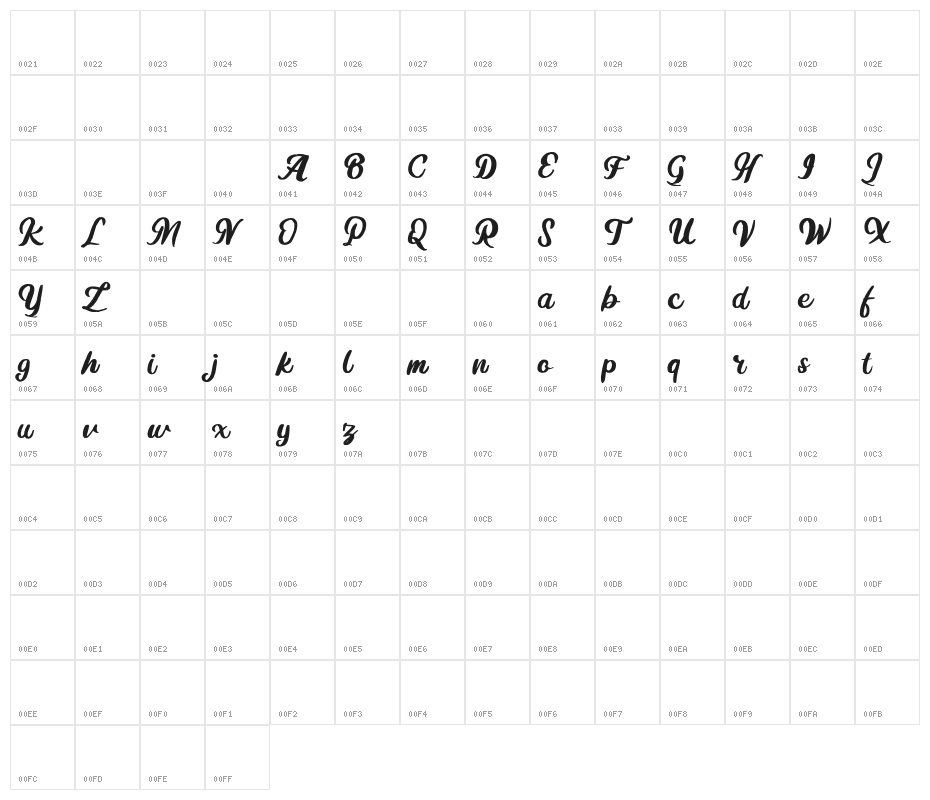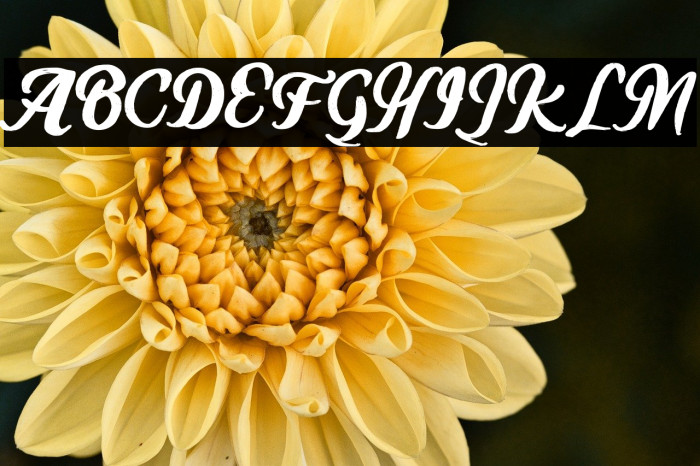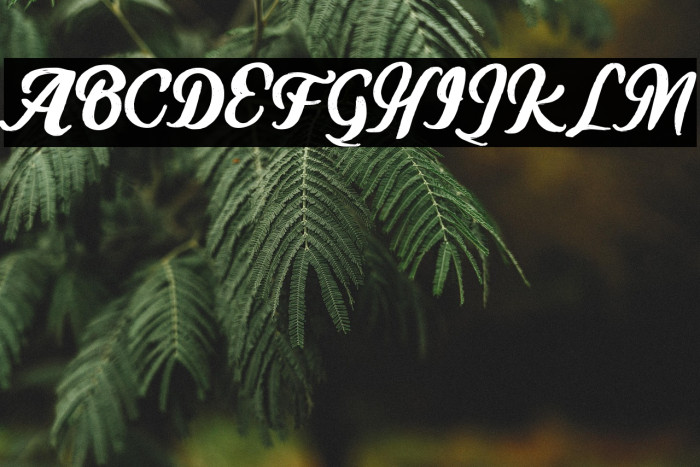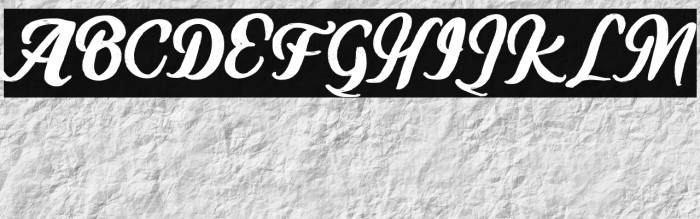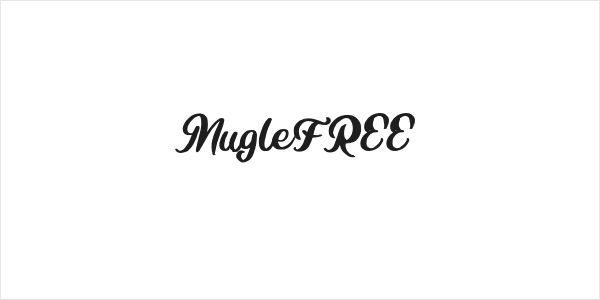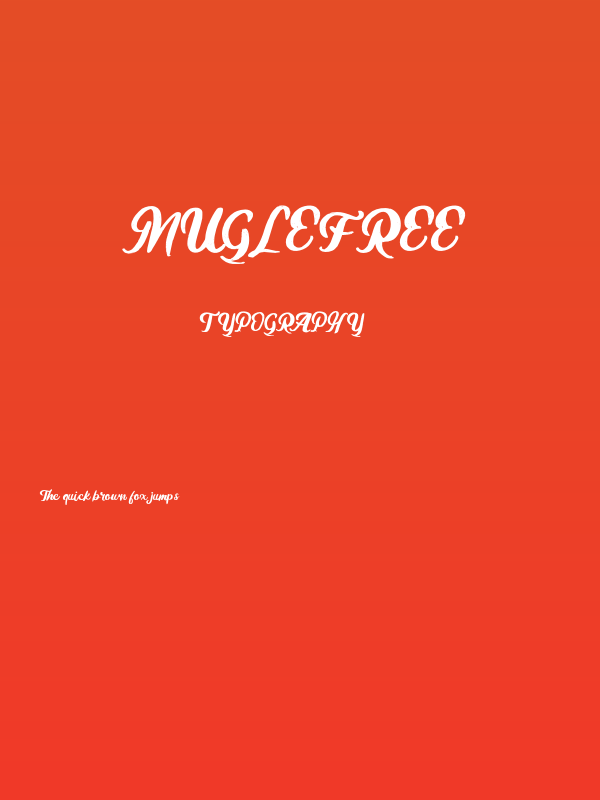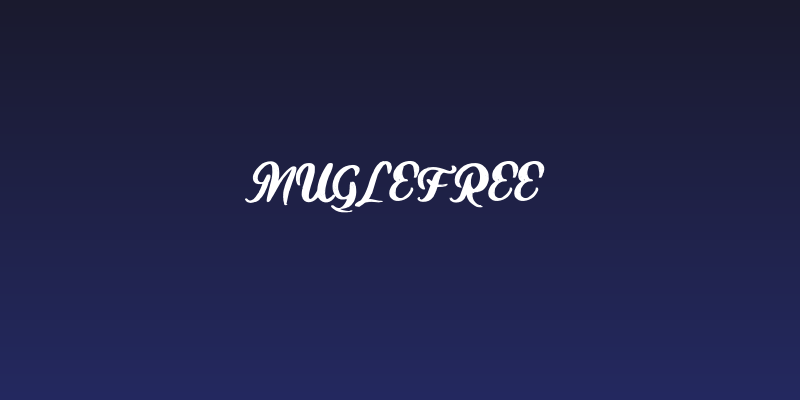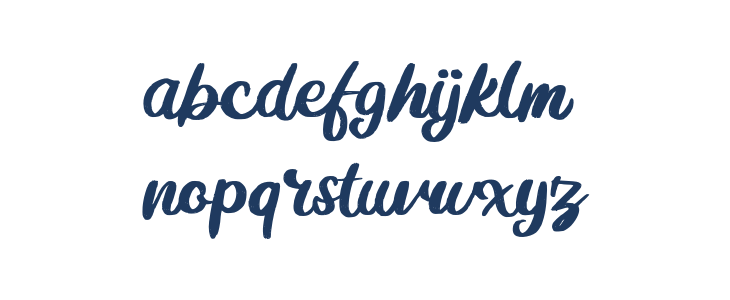
MugleFREE Font
MugleFREE Description
This font features a bold and expressive script style with a dynamic flow, characterized by its elegant curves and fluid strokes. The uppercase letters are particularly ornate, with sweeping lines and a sense of movement that adds a touch of sophistication. The lowercase letters maintain a consistent style, offering a harmonious blend with the uppercase. The overall appearance is both stylish and legible, making it suitable for a variety of creative applications. The font's boldness ensures it stands out, while its script nature adds a personal, handwritten feel.
| Use Case | Logos, Headlines, Invitations |
| Proposed Projects | Ideal for branding, invitations, greeting cards, and decorative headlines. |